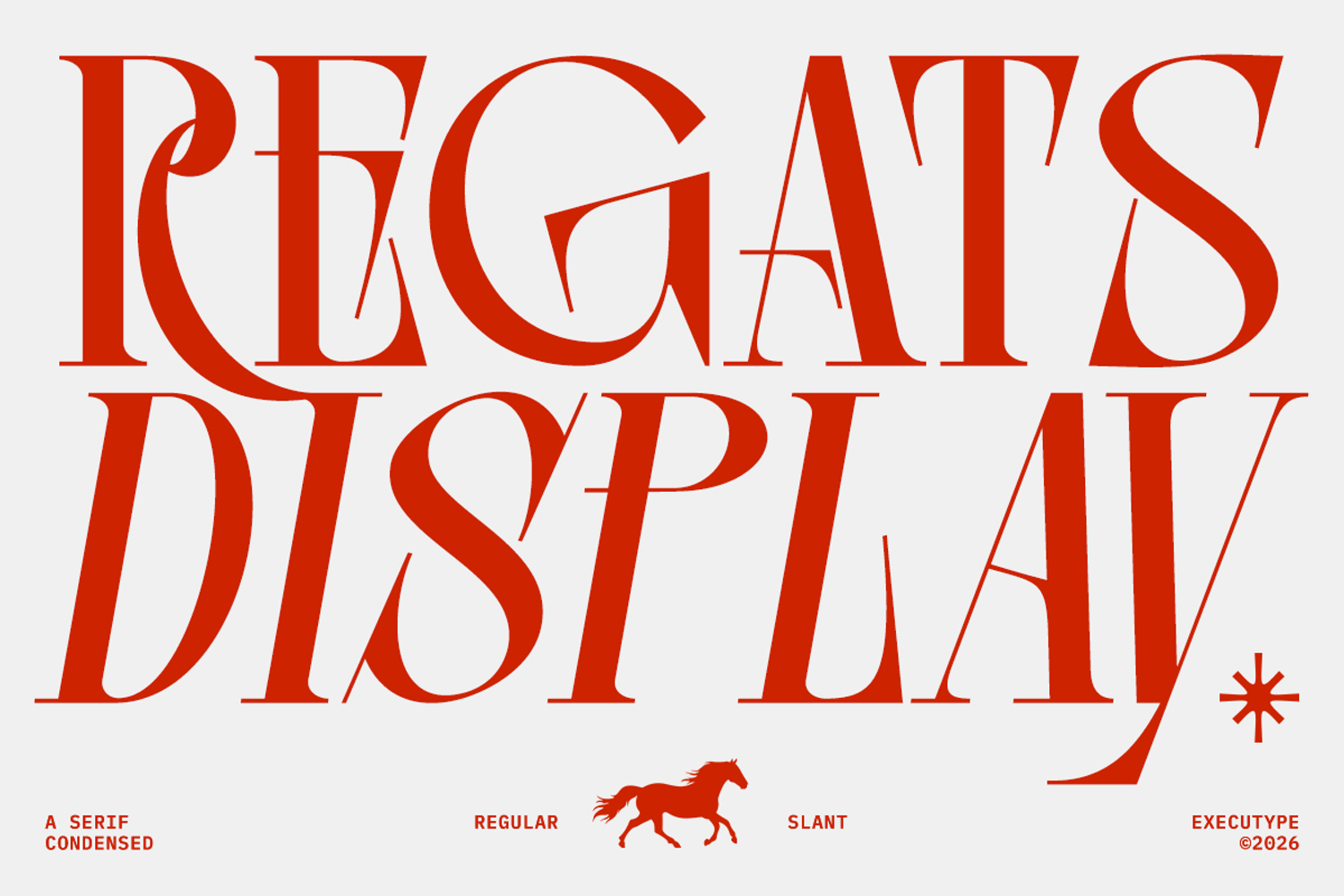
Regats Display
Regats Slant Display
Introducing Regats Display
Regats is a luxury serif display typeface inspired by 1930s elegance and high-fashion editorials.
Featuring dramatic high-contrast strokes, sharp serifs, and a unique slant/regular style, Regats delivers a sophisticated and timeless look.
Designed to capture attention on magazine covers, luxury branding, perfume labels, and premium packaging. The font includes beautiful alternate characters and ligatures to give your design an exclusive, bespoke feel.
- Stylistic Alternates & Ligatures
Regats: Where elegance meets display.